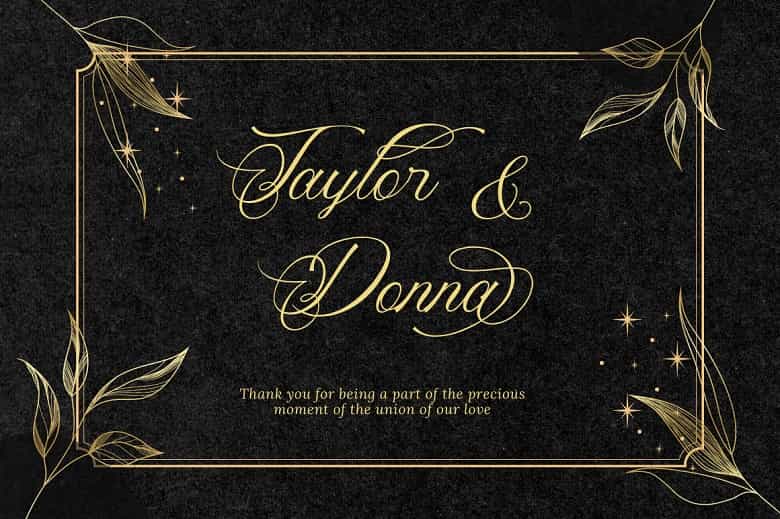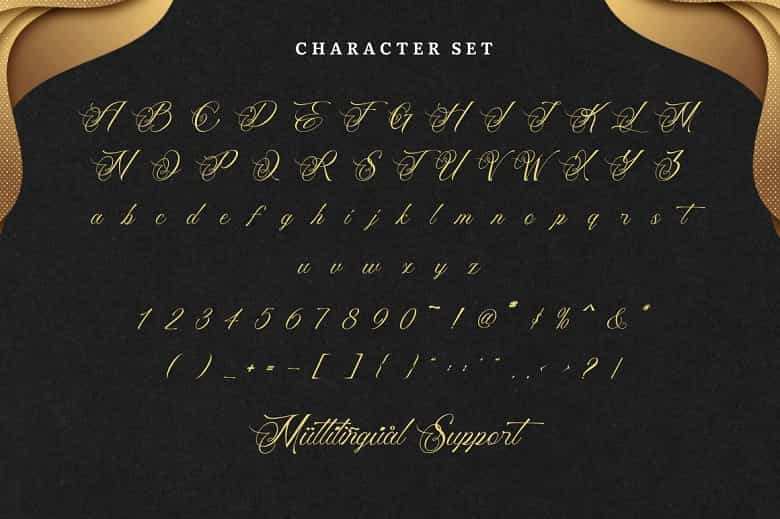
Discover Balisay Font, part of the Calligraphy collection—a versatile and unique font perfect for adding a personal touch to your projects. Download it for free and enjoy crafting designs with style, from invitations to social media posts. This font is available exclusively for personal use, giving you the freedom to create without limits. Unlock your creativity with Balisay Font today!
Balisay is a beautiful calligraphy script font which is suitable for branding, invitation, stationery, wedding design, social media post bio and advertisements, product packaging, product design, label, photography watermark, event and many more.